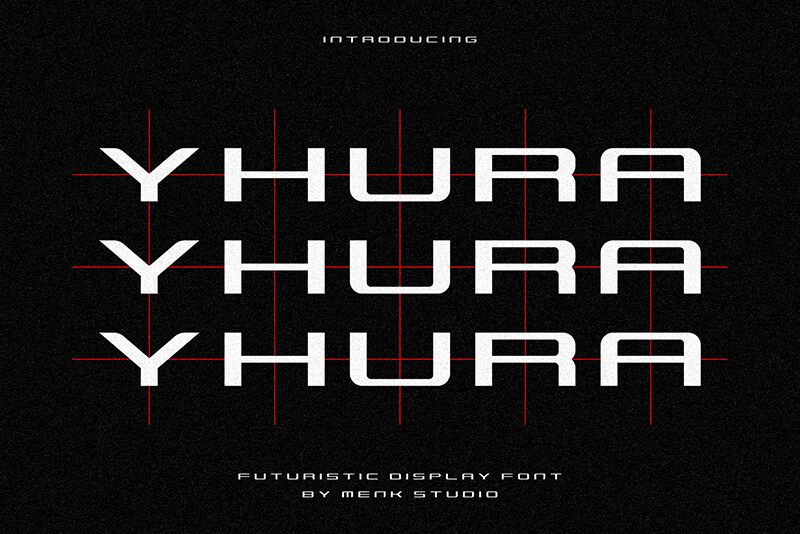
Yhura font by Menk Type is a sleek and modern techno typeface that captures a futuristic and innovative aesthetic. Minimalist and geometric, Yhura radiates a contemporary vibe perfect for digital contexts. With its angular lines and sci-fi appeal, this font brings a high-tech mood to any project.
Perfect for a range of applications, Yhura is ideal for tech company branding, digital interfaces, sci-fi book covers, website design, app development, experimental art, event posters, gaming, and other contemporary projects.